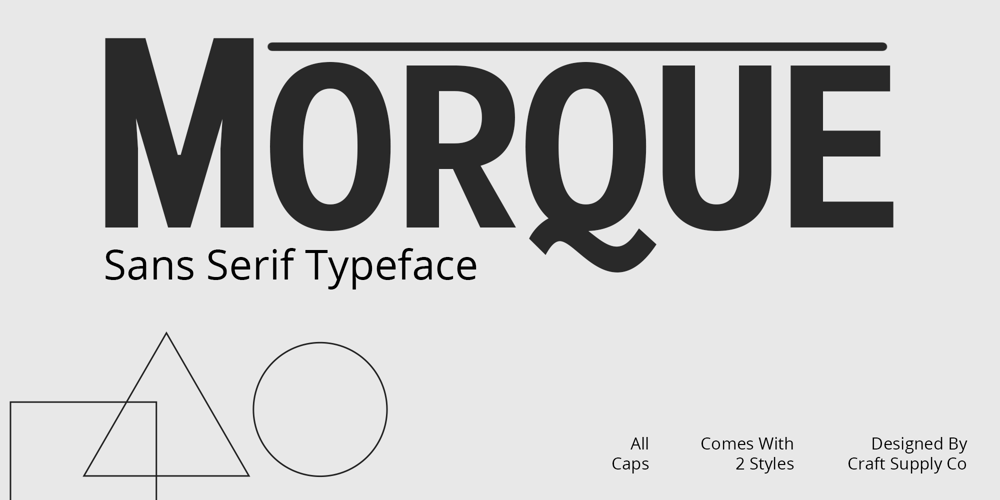
Morque Font Family was designed by Trio Nazzar Saputra, Wahyu Hadi Yuana and published by Craft Supply Co. Morque contains 2 styles and family package options. Morque – Sans Serif Font: Bold and ExpressiveBoldness in Every Letter:Morque – Sans Serif Font stands out with its all caps design. It’s perfect for impactful titles and displays. This font commands attention in any visual space.Ideal for Titles and Displays:Morque’s bold structure makes it ideal for titles and visual displays. It enhances the readability of headlines. This font is a go-to for designers aiming for a strong statement.